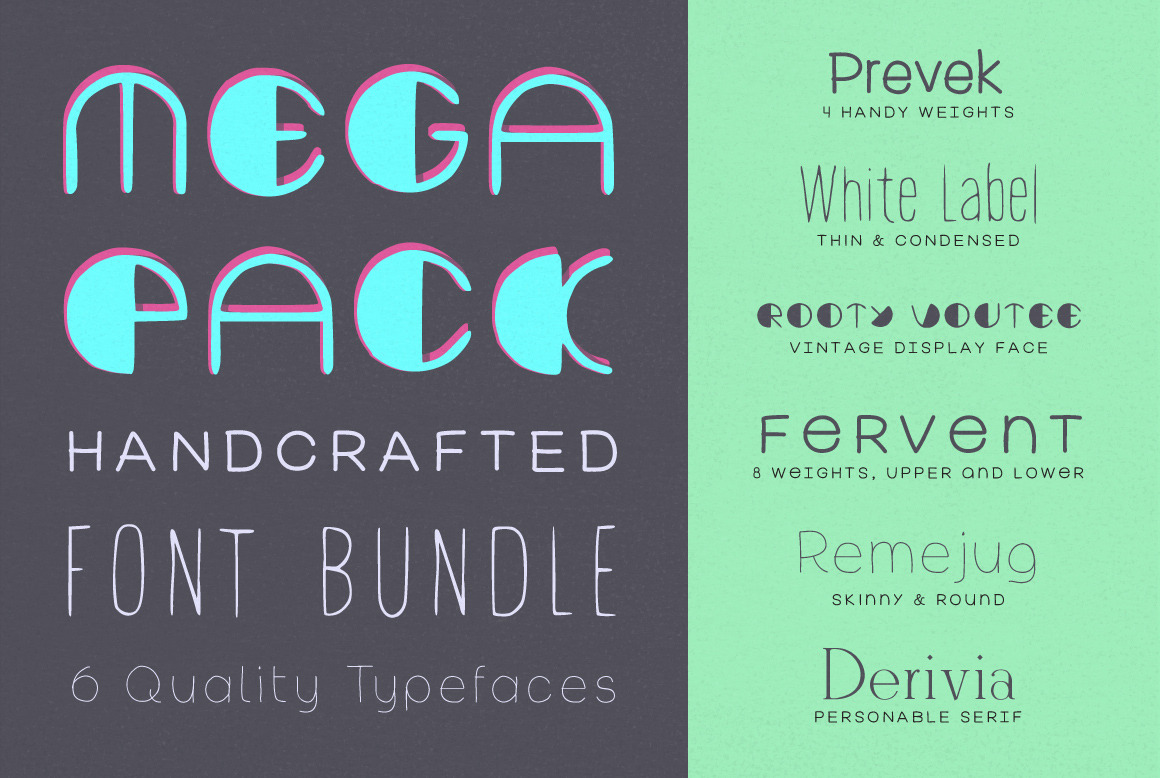
Handed Font Pack: 6 typefaces
The Handed Font megapack includes 6 typefaces with an expressive feel, and some have a handful of weights. This bundle is perfect for achieving an authentic look. It accentuates the beauty of making things by hand, as well as the personal effort put into your work down to the last detail.
Two of the typefaces are not sold elsewhere, and are only available in this bundle: Prevek (4 font weights) + Rooty Voutee.
THE FONTS:
- Prevek - Rounded sans with 4 weights. Gives a marker feel you'd see on a supermarket window.
- White Label - Classic narrow letters. Tall and narrow with a carefully painted look.
- Rooty Voutee - Hybrid of Art Deco (jazzy roaring '20s) meets a postmodern european geometric.
- Fervent Sans - Nod to metropolitan signs, with oversized lowercase to keep it honest and fun. 8 weights.
- Remejug - Delicate and skinny. This modern face is as minty as girl scout cookies.
- Derivla - Sets a formal, yet personable tone with its architectural posture and quirky letter construction.